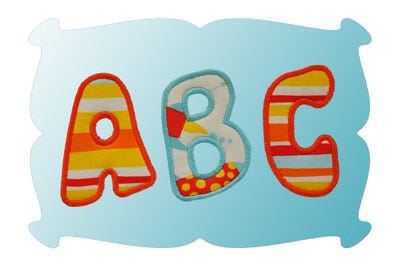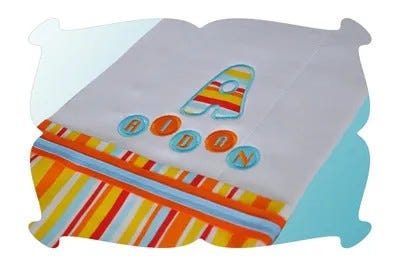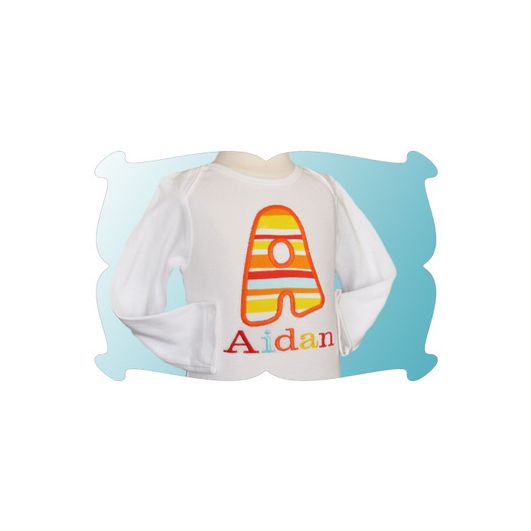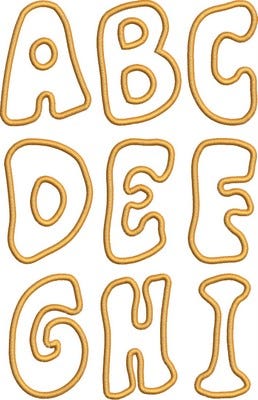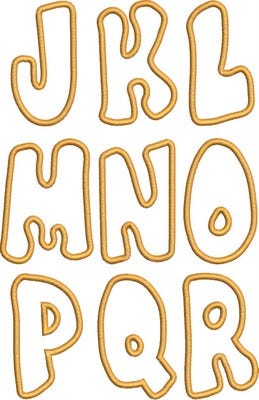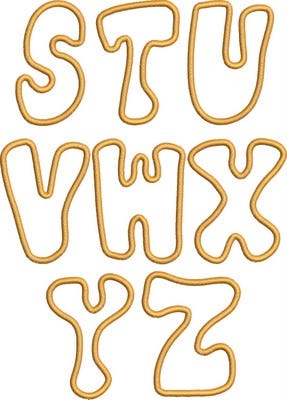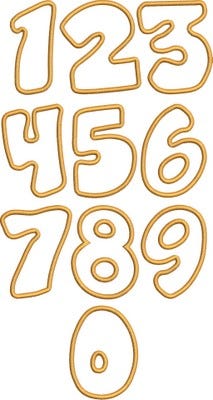
Aidan Applique Font
A fun and wonky applique font for your little one!
Perfect for Oneises, T's and burp cloths too.
Also included are 2 types of finishing stitches: traditional satin stitch and zig zag stitch.
Upper Case letters A thru Z and numbers 0-9.